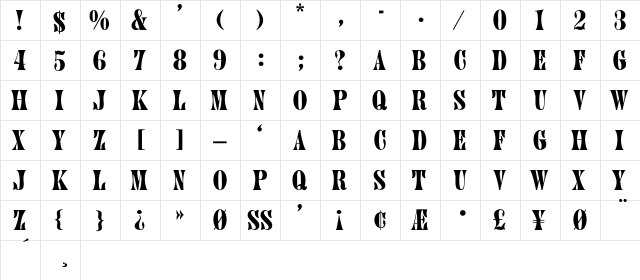
Pluonto-Thin Regular
Design Context for Pluonto-Thin Typeface
Pluonto-Thin is a composed and adaptable typeface that performs quietly and consistently across a wide range of design contexts. Its slender proportions lend an understated elegance to any composition.
Pro Tip: Use Pluonto-Thin in both headline and body roles to test its range before committing to a single application.